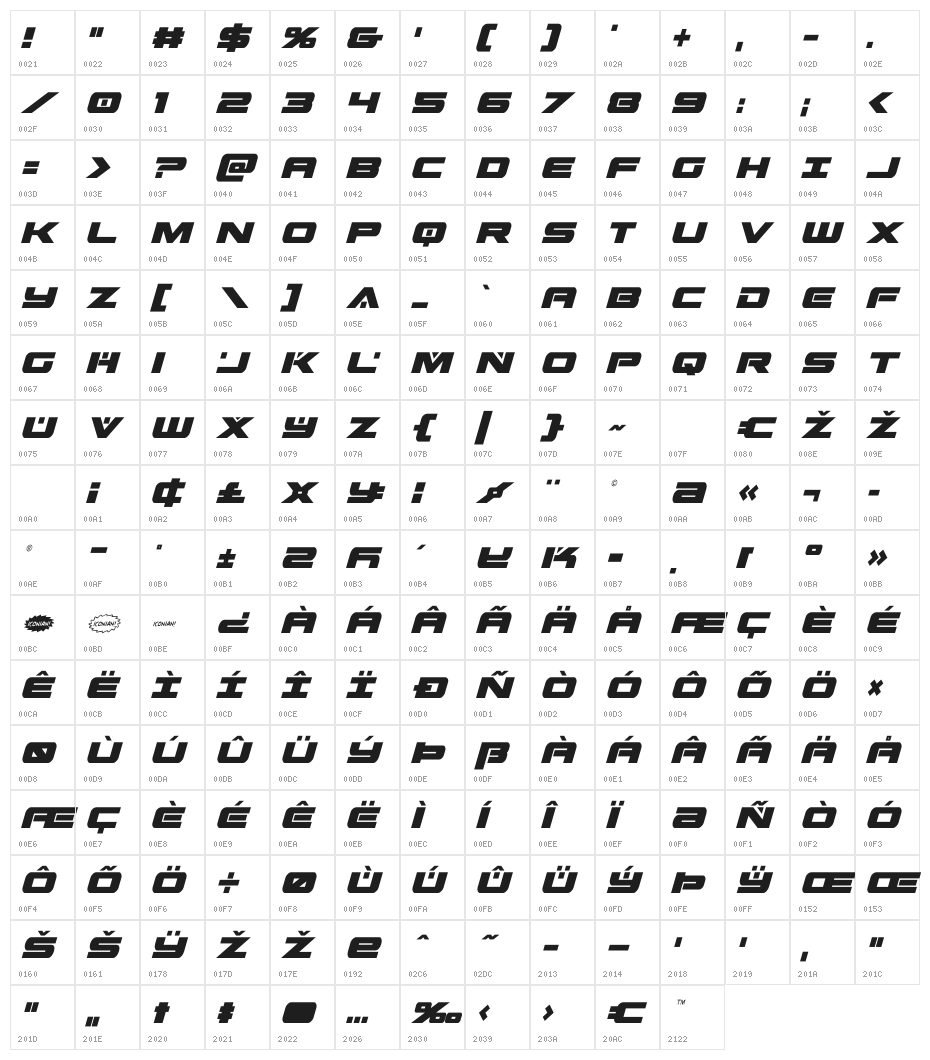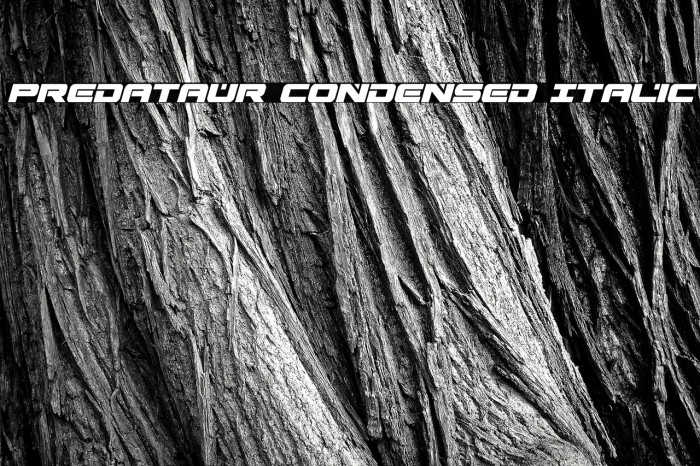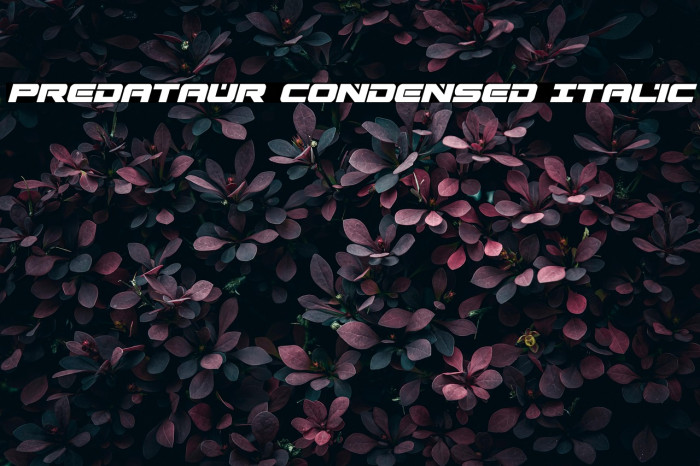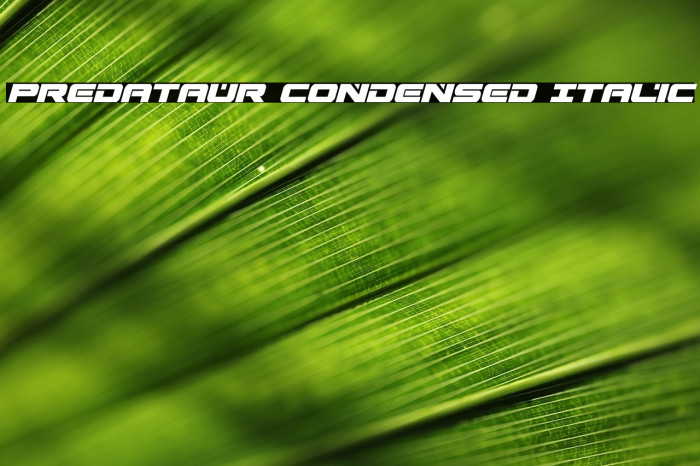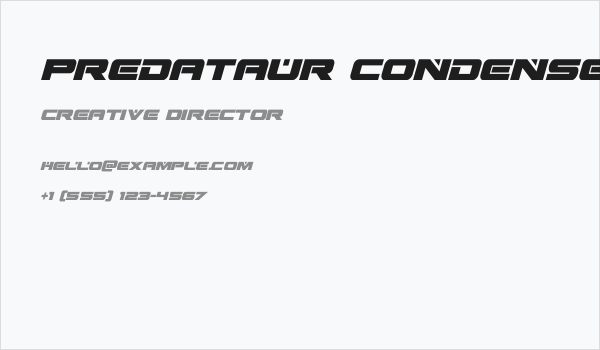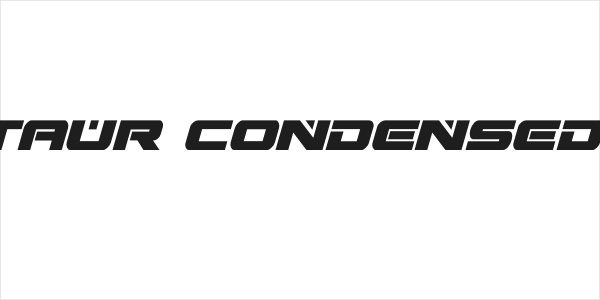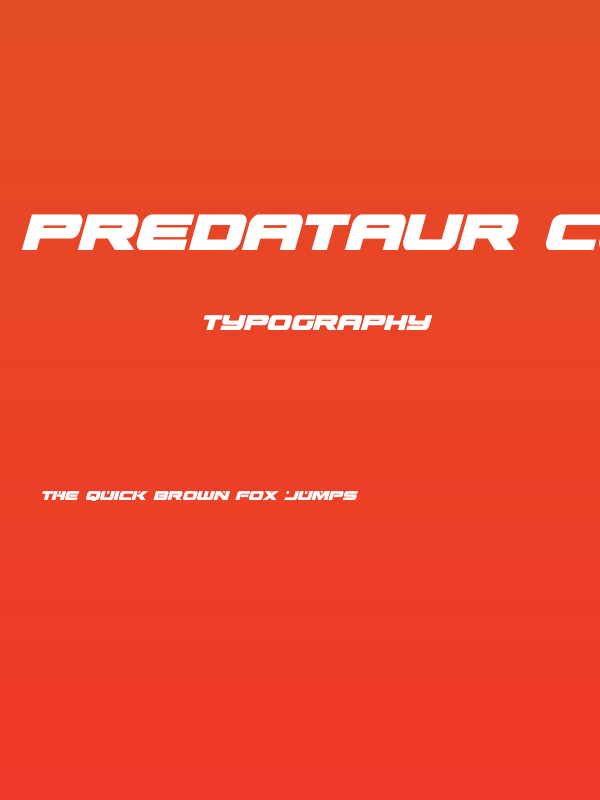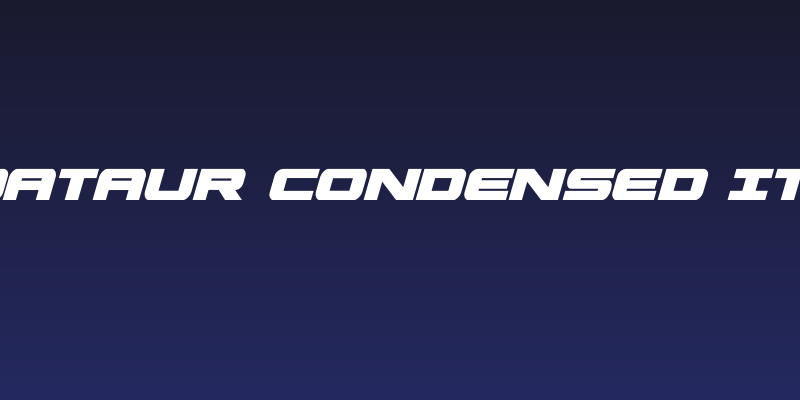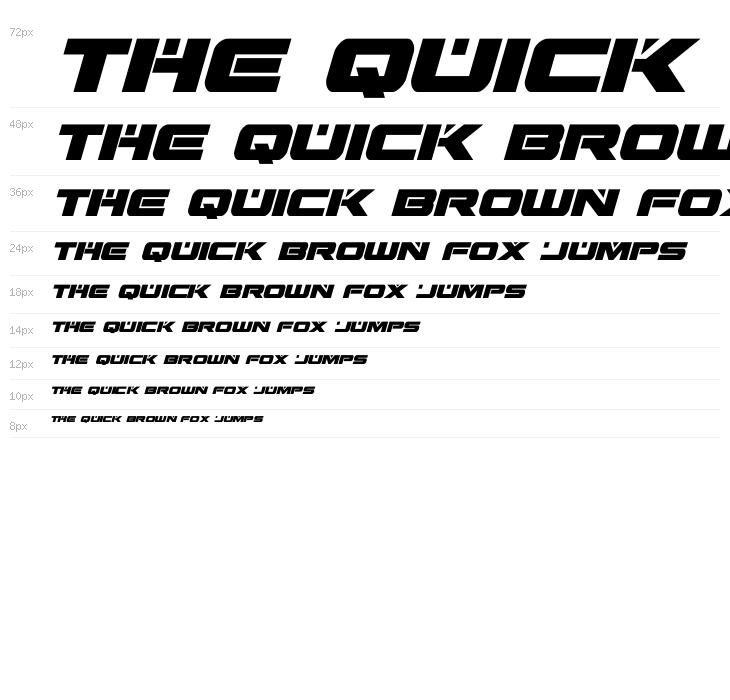
Predataur Condensed Italic Font
Predataur Condensed Italic Description
This font features a bold, futuristic design with a condensed and italicized style. The characters are sharply angled, giving a sense of speed and modernity. The uppercase and lowercase letters maintain a consistent geometric form, with a slight slant that enhances the dynamic appearance. The numbers and special characters follow the same aesthetic, ensuring uniformity across all glyphs. The overall look is sleek and powerful, making it suitable for projects that require a strong visual impact.
| Proposed Projects | Ideal for technology branding, sports team logos, video game titles, and sci-fi movie posters. |